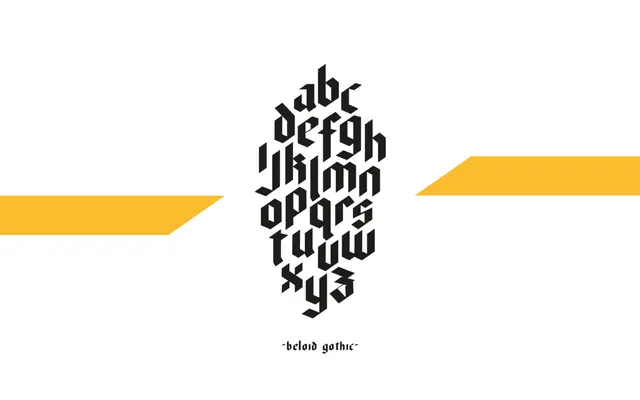
Beloid Gothic
A geometric fraktur blackletter drawn with a 35-degree angled nib, aimed squarely at bold titling and logotype work.
Beloid Gothic takes fraktur letterforms and applies a geometric sensibility, using a 35-degree angled nib to give the strokes a consistent, structured rhythm. It covers a full European character set and is designed for display use at large sizes where the strong angles and medieval references read clearly. Best suited to logotypes, headlines and editorial contexts that want blackletter weight without historical pastiche.
Explicitly described as a blackletter typeface with fraktur style, drawn with a 35-degree angled nib and geometric construction rooted in medieval script traditions.